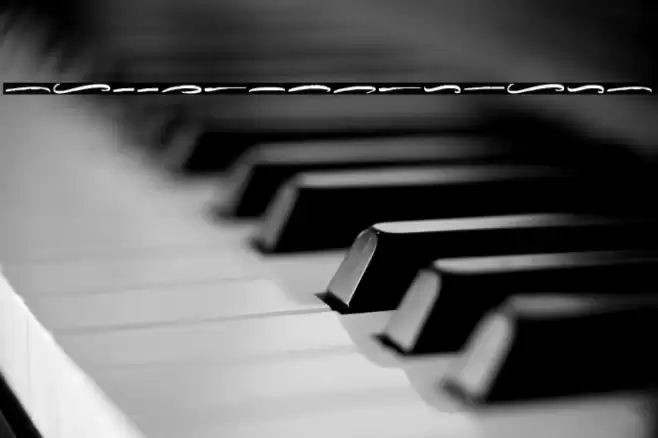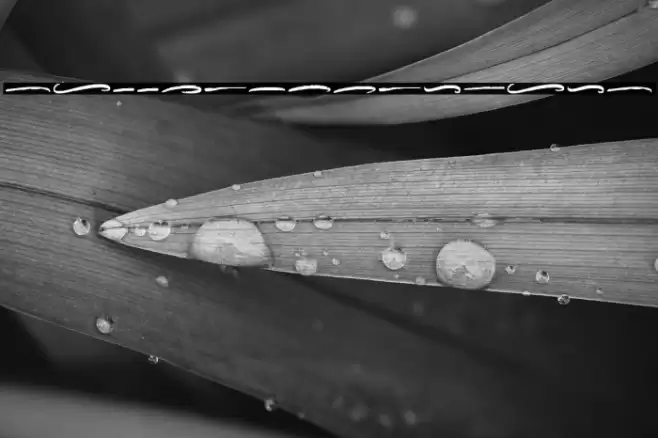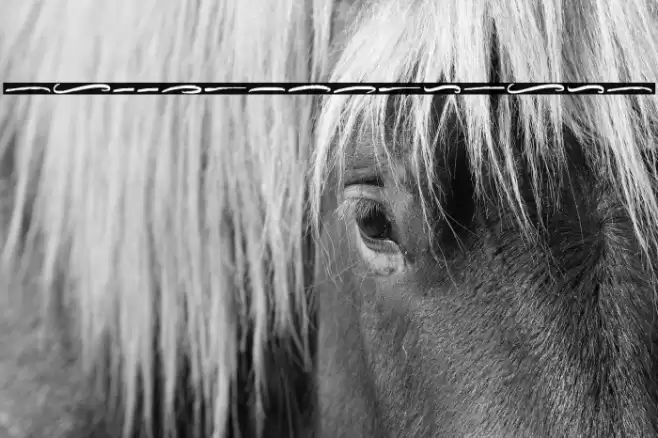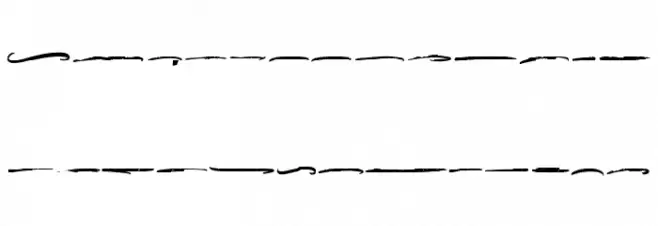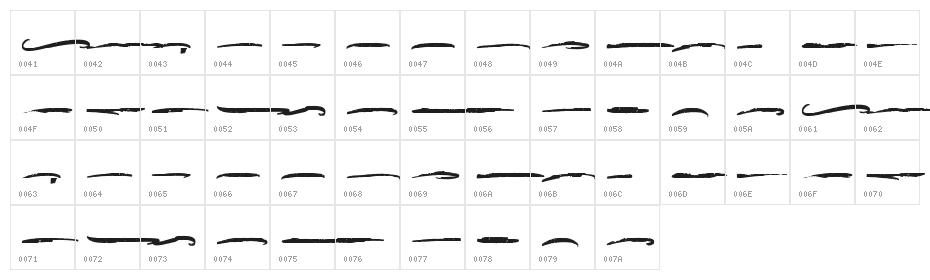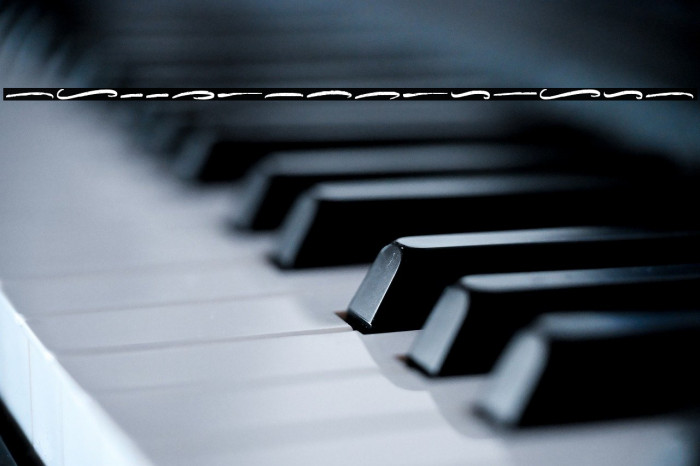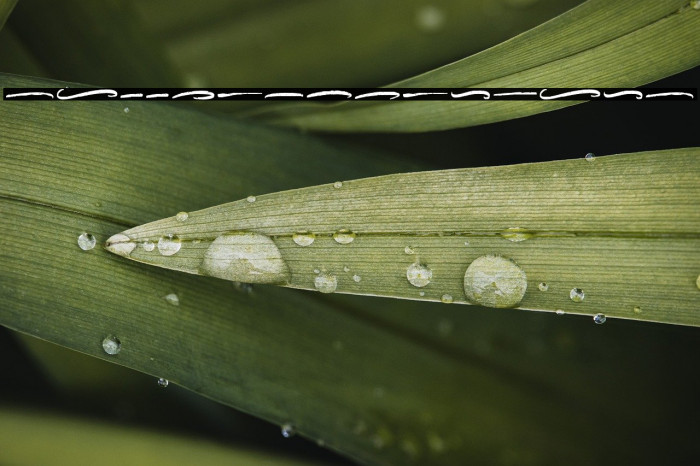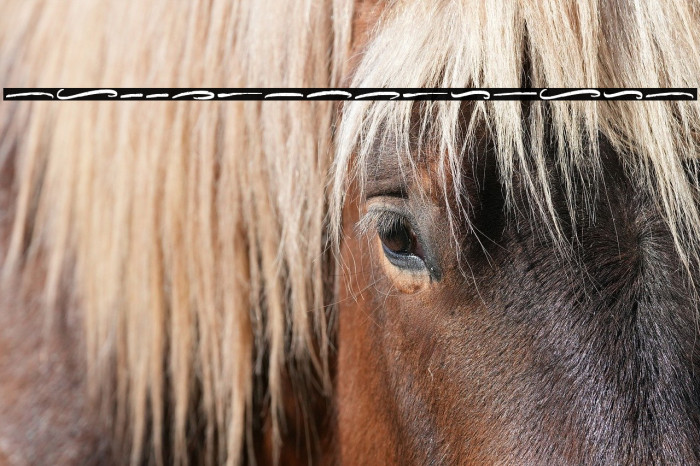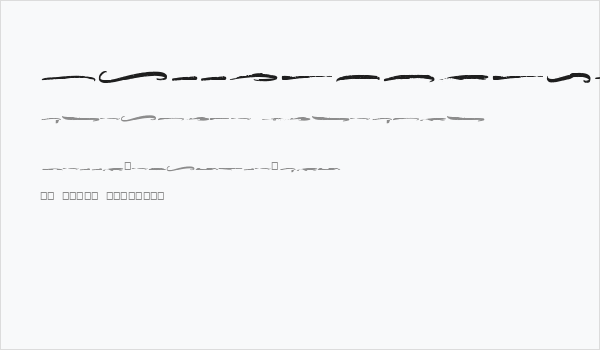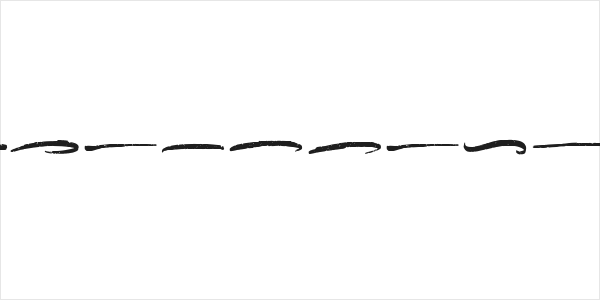
HallingtonSwash Font
HallingtonSwash Description
This is a decorative font characterized by its elegant swashes and flourishes, reminiscent of classic calligraphy. The strokes are smooth and flowing, with a hand-drawn quality that adds a personal touch to any design. The font features long, sweeping lines that extend from the characters, giving it a sense of movement and grace. It is ideal for projects that require a touch of sophistication and style, such as wedding invitations, greeting cards, or branding materials. The overall appearance is both artistic and refined, making it suitable for a variety of creative applications.
A decorative font with elegant swashes and calligraphic flourishes from Uncategorized fonts.
- Proposed Projects: Wedding invitations, greeting cards, branding materials, artistic designs.
- Overall Style: Classic
- Use Case: Headlines, Artistic designs